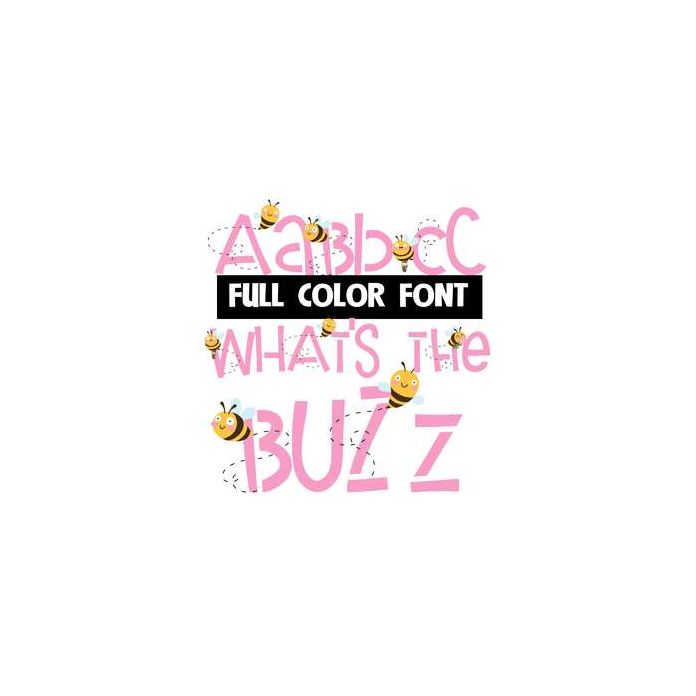
This full-color font features little bees and buzz lines all around the uppercase and a lowercase without. This font works best for titles, displays, posters and more. Please note color fonts will show as black in non compatible programs. This font type is compatible with Silhouette Studio.